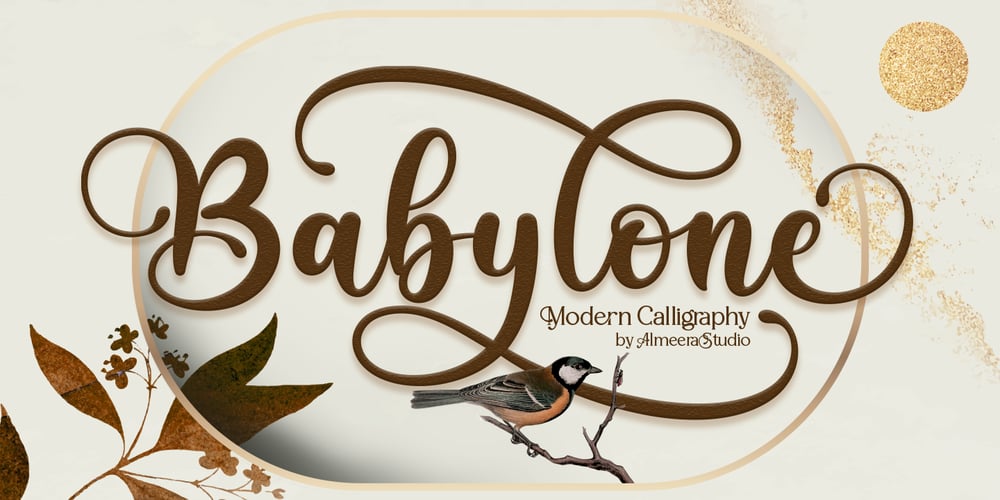
Babylone Script Font Family was designed by Rinto Dwi Nugroho and published by Almeera Studio. Babylone Script contains 1 styles and family package options. Babylone is a modern calligraphy with many alternative styles, this font looks natural, elegant and perfect for any extraordinary project. Babylone is suitable for various products such as invitations, product packaging, quotes, product design, crafter, labels, photography, watermarks, logos & branding and very suitable for design Valentine day, mother day, wedding, spring, christmas, etc.Everything Stylistic Altternate can be accessed using software that supports Opentype, such as Adobe Indesign, Adobe CS Illustrator, Adobe Photoshop CC, and Corel Draw or It has swash and stylistic alternates.Thank you & Happy design.